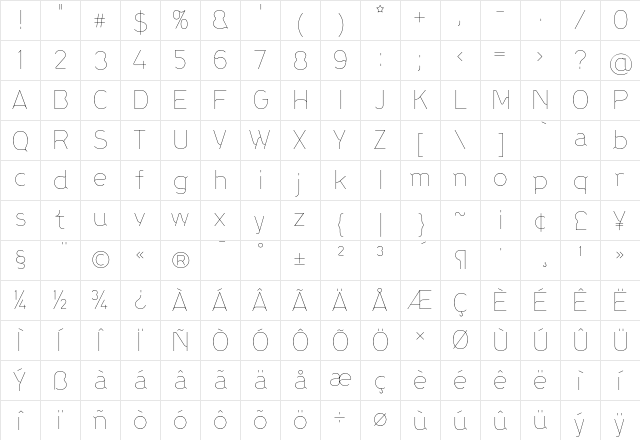
Enabler Thin
Design Context for Enabler Typeface
Enabler takes a measured approach to typography — its balanced proportions and neutral character make it a reliable workhorse for both digital and print work. Its slender proportions lend an understated elegance to any composition.
Pro Tip: Use Enabler in both headline and body roles to test its range before committing to a single application.